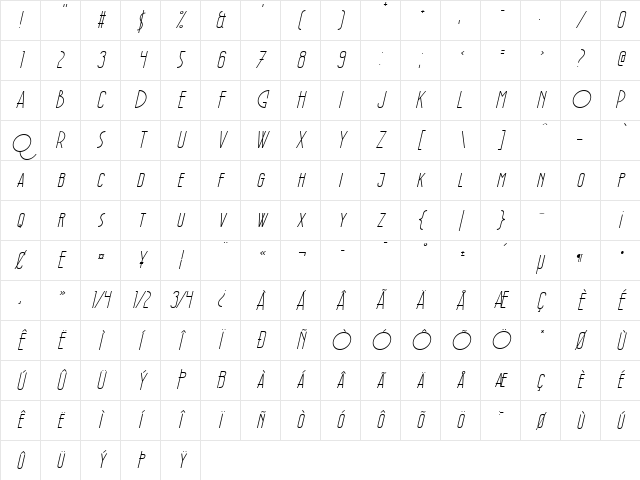
PTO Italic Free Font
PTO Italic
Designer: Heru Utama Putra
Design Context for PTO
PTO is a composed and adaptable typeface that performs quietly and consistently across a wide range of design contexts. The slanted form adds forward momentum and visual energy.
Pro Tip: Use PTO for emphasis, pull quotes, and subheadings where its slanted energy can add rhythm to the layout.